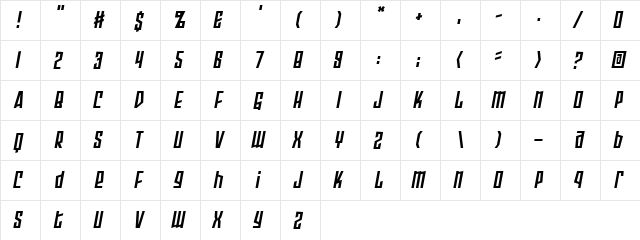
Armor Piercing 2.0 BB Italic
Design Context for Armor Piercing 2.0 BB Typeface
Armor Piercing 2.0 BB offers clean, dependable letterforms without strong stylistic allegiance, making it a practical choice for designers who need flexibility. The slanted form adds forward momentum and visual energy.
Pro Tip: Use Armor Piercing 2.0 BB for emphasis, pull quotes, and subheadings where its slanted energy can add rhythm to the layout.